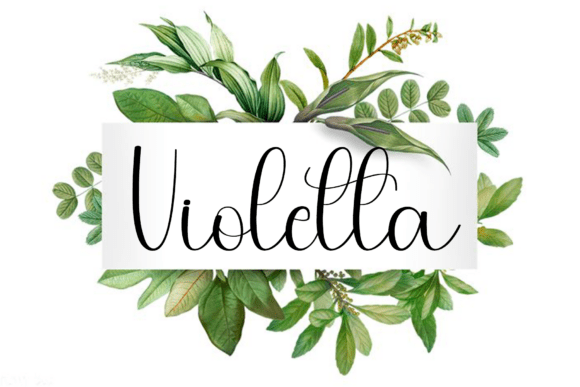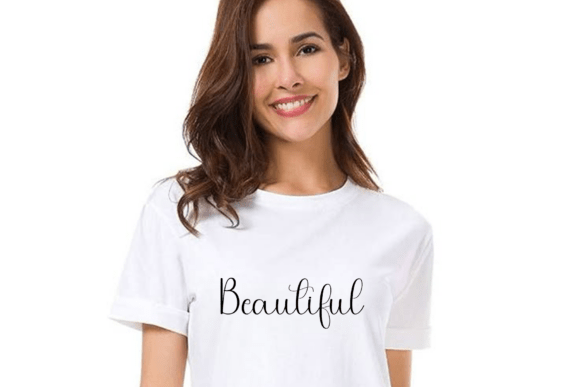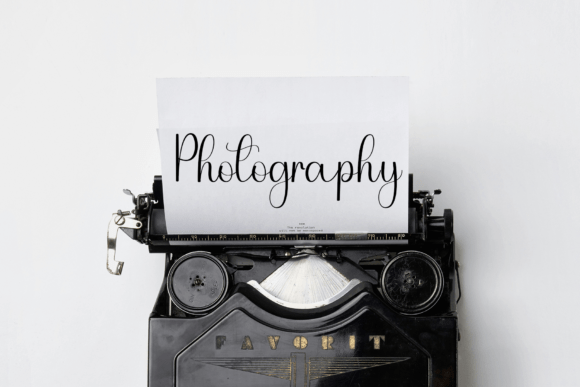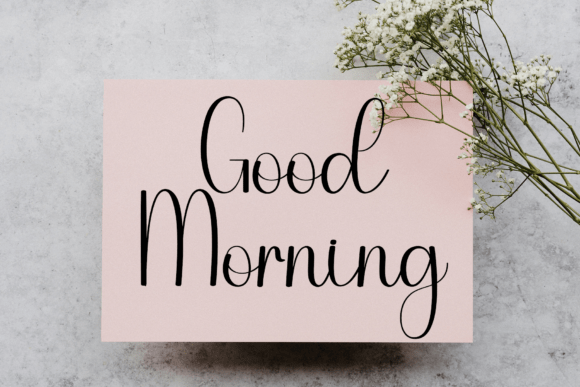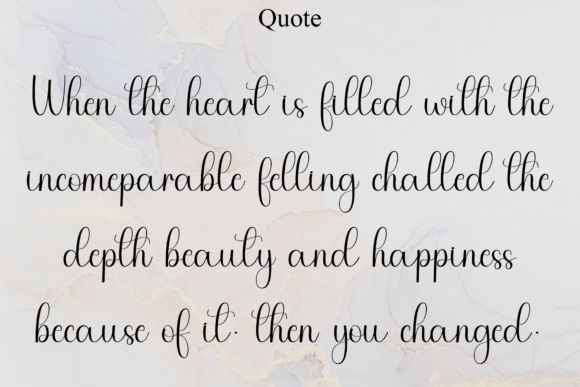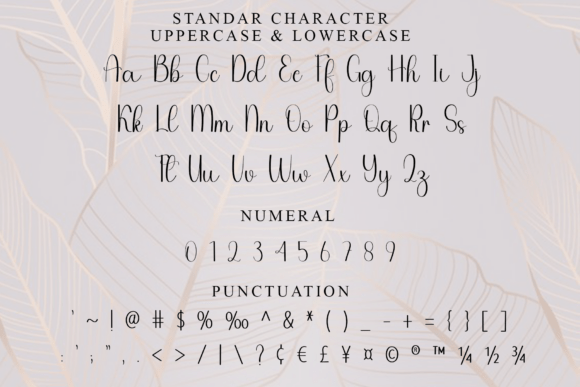
The Sweet Spot: Discovering Cherris Font
I’ll never forget the time I was working on a branding project for a new boutique client. I had spent hours perfecting the logo, but something felt off. The font I had chosen just wasn’t giving me the warm, inviting vibe I was going for. That’s when I stumbled upon Cherris Font. With its smooth strokes and natural flow, it was like the perfect match made in heaven! In this article, I’ll dive into what makes Cherris so special and how you can make the most of it in your designs.
An Honest Review of Cherris Font
- ✨ Sweet and modern feel: Cherris brings a playful, feminine touch to any design, making it perfect for projects that need a bit of charm.
- ✅ Ease of use: This font is incredibly versatile and works beautifully for everything from branding and social media to invitations and lifestyle blogs.
- 💫 Approachable vibe: Cherris makes every word feel personal and stylish, which is exactly what you want for designs that need to connect with your audience.
While Cherris is an amazing font, there are a few things to keep in mind:
- ⚠️ Legibility at small sizes: Like many script fonts, Cherris can get a bit tricky to read at very small sizes. Make sure to test it out in different contexts to ensure it works for your project.
- 🤔 Overuse of swashes: While the swashes and stylistic alternates in Cherris are gorgeous, using too many can make your text look cluttered. Balance is key!
The Story Behind Cherris Font
Cherris was created with the intention of bringing a touch of sweetness and modernity to the world of typography. Inspired by the flowing strokes of handwritten scripts and the clean lines of modern design, Cherris aims to be both approachable and stylish. Whether you’re a designer working on a client project or a hobbyist crafting something special, Cherris is designed to make your words feel personal and beautiful.
| Font Name | Cherris Font |
| Author | K_IN Studio |
Q: What makes Cherris Font unique?
A: Cherris stands out with its smooth strokes, natural flow, and a playful yet feminine touch. It’s perfect for designs that need a bit of charm and approachability.
Q: Is Cherris suitable for body text?
A: While Cherris is stunning for headings and titles, it might not be the best choice for long body text due to its script nature. It’s best used for accents or short paragraphs.